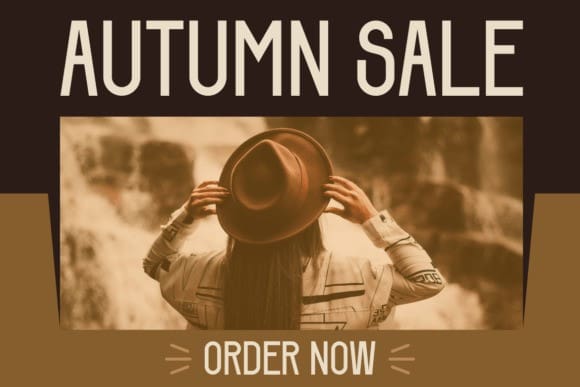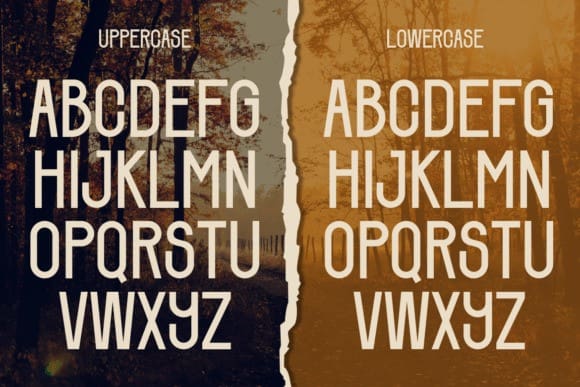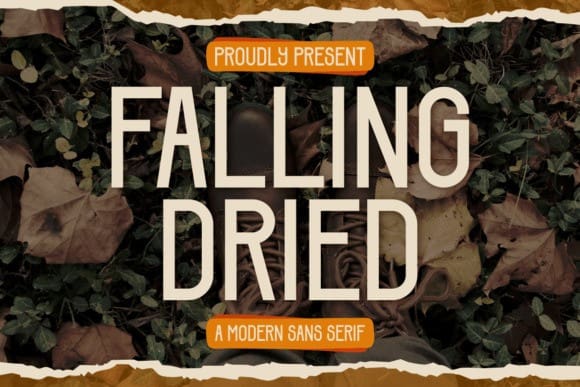
Falling Dried Font
Falling Dried Font, this font features a style that creates a warm sense of nostalgia and recalls the natural wonder as leaves change colors. Delicate lines and gentle curves add dimension to the letter characters, creating an impression of softness and tranquility. Falling Dried is highly suitable for projects that aim to depict the beauty and charm of the autumn season.